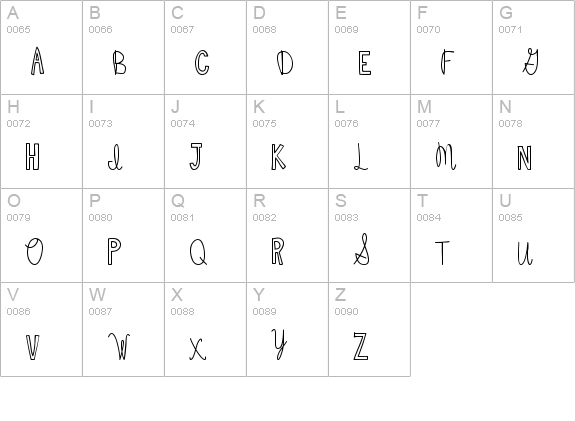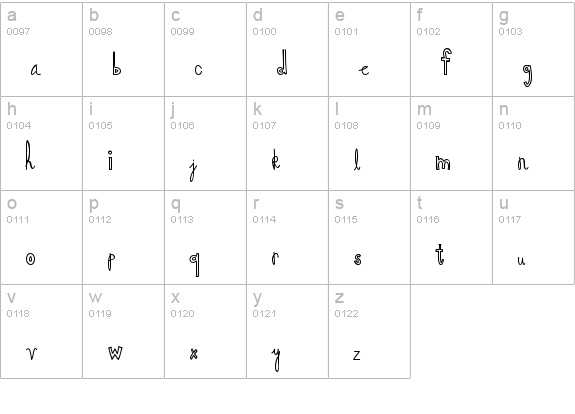
Purple Boxers Font Details
Introducing Purple Boxers font, a playful and stylish typeface that exudes a sense of fun and creativity. With its bold and eye-catching design, Purple Boxers is perfect for a variety of projects, from branding to social media graphics. The unique character shapes and smooth curves give this font a modern and fresh look that will make your text stand out. What's even better is that Purple Boxers font is absolutely free to download at FontsMarket.com. Whether you're a designer looking for a new font to add to your collection or someone in need of a cool typeface for a project, Purple Boxers is the perfect choice. Don't miss out on this fantastic font – download it today and let your creativity shine!